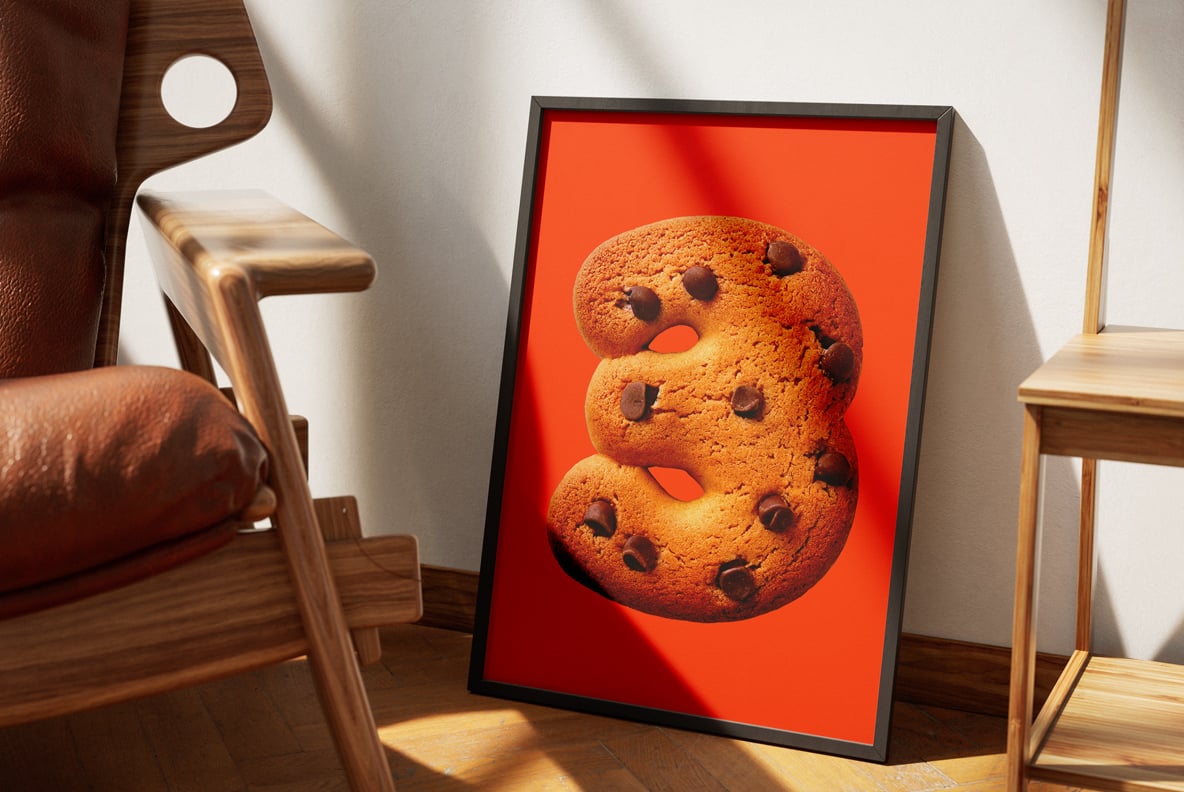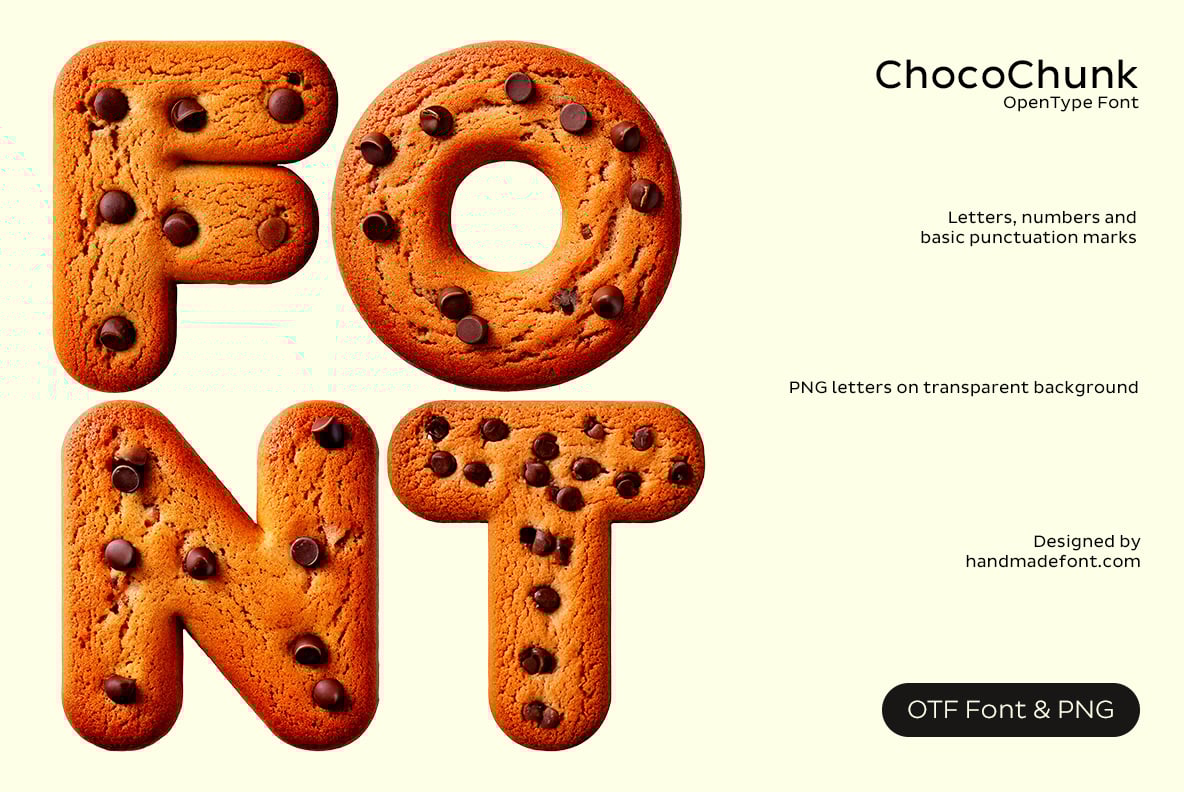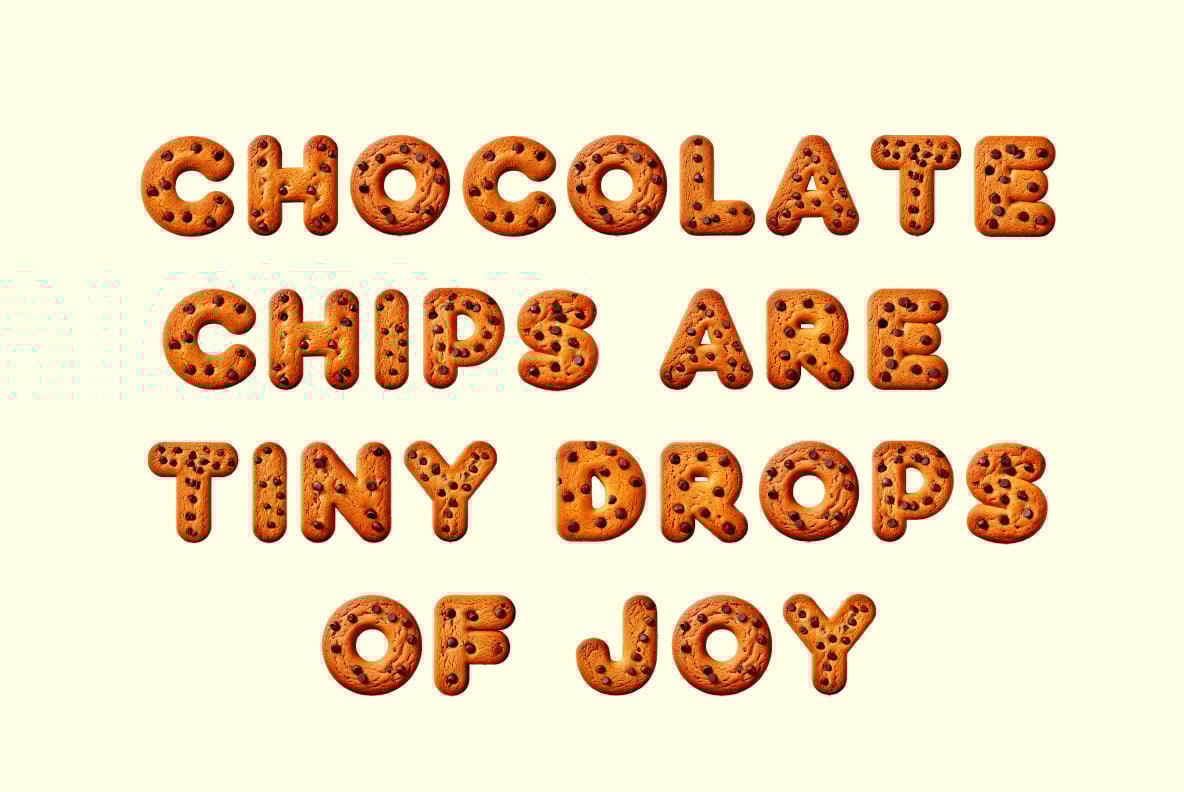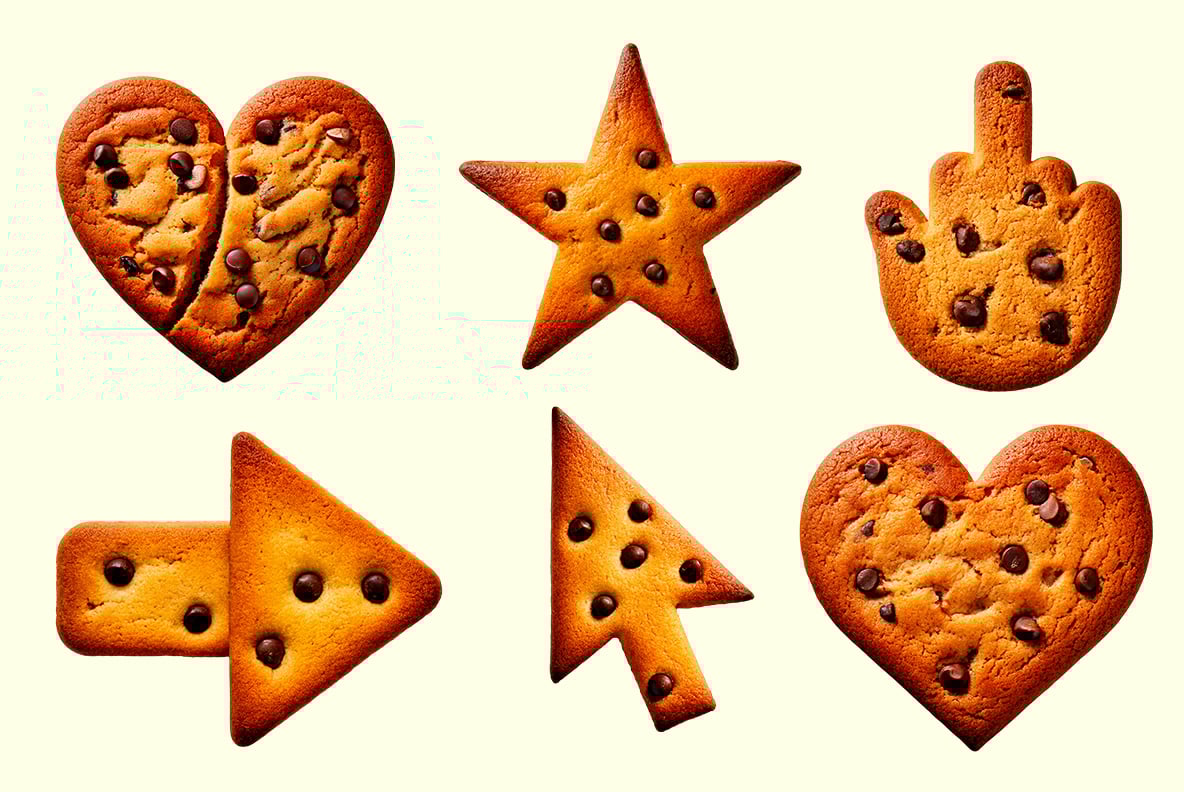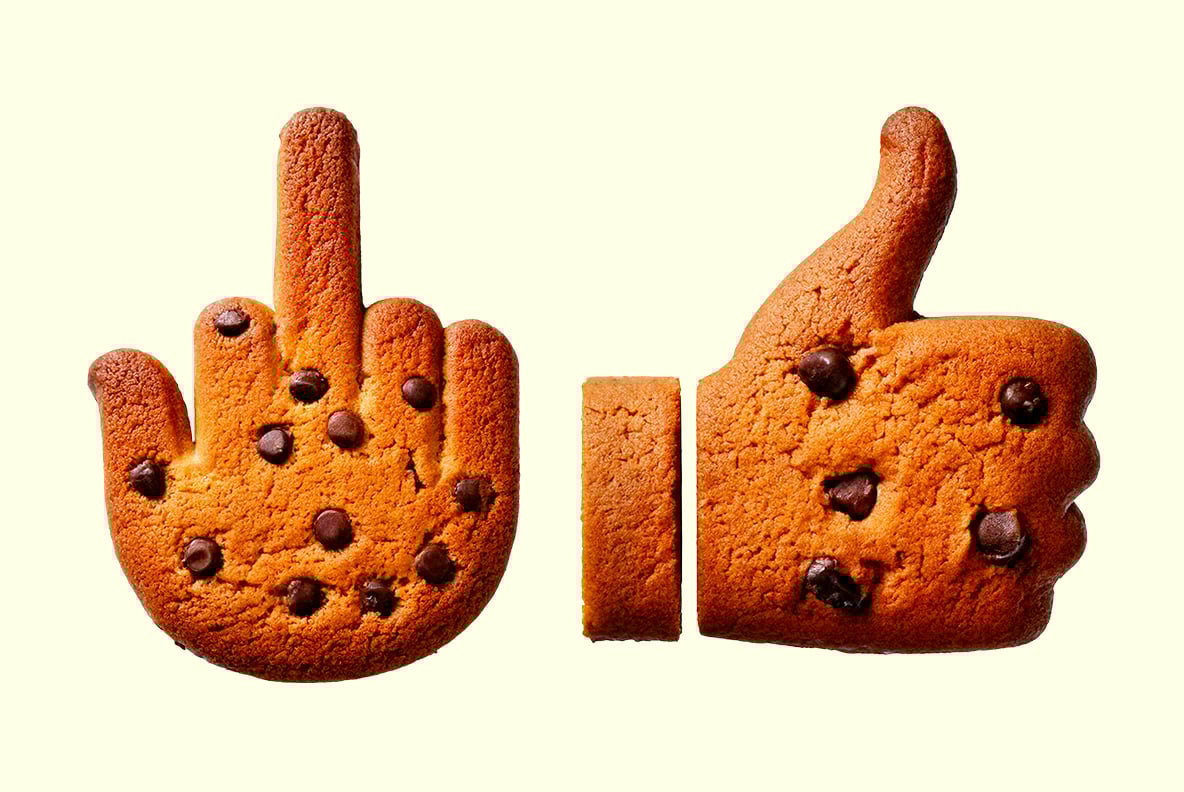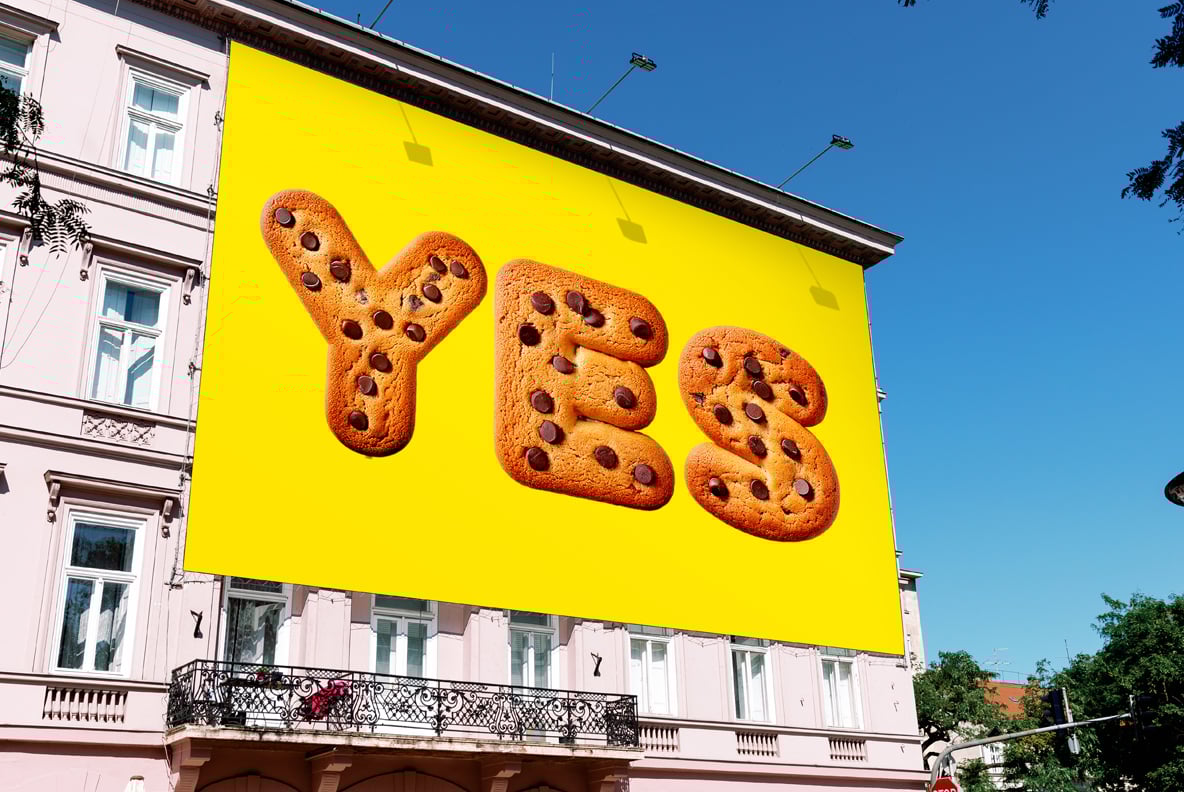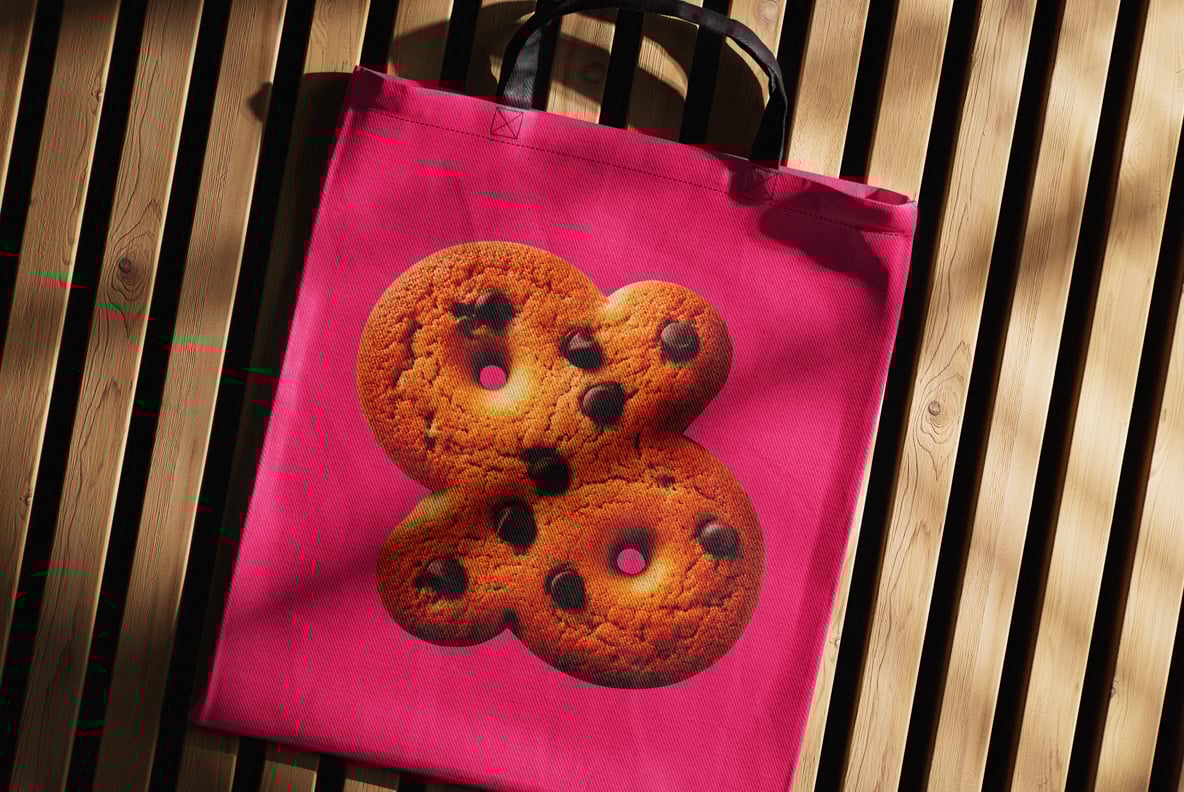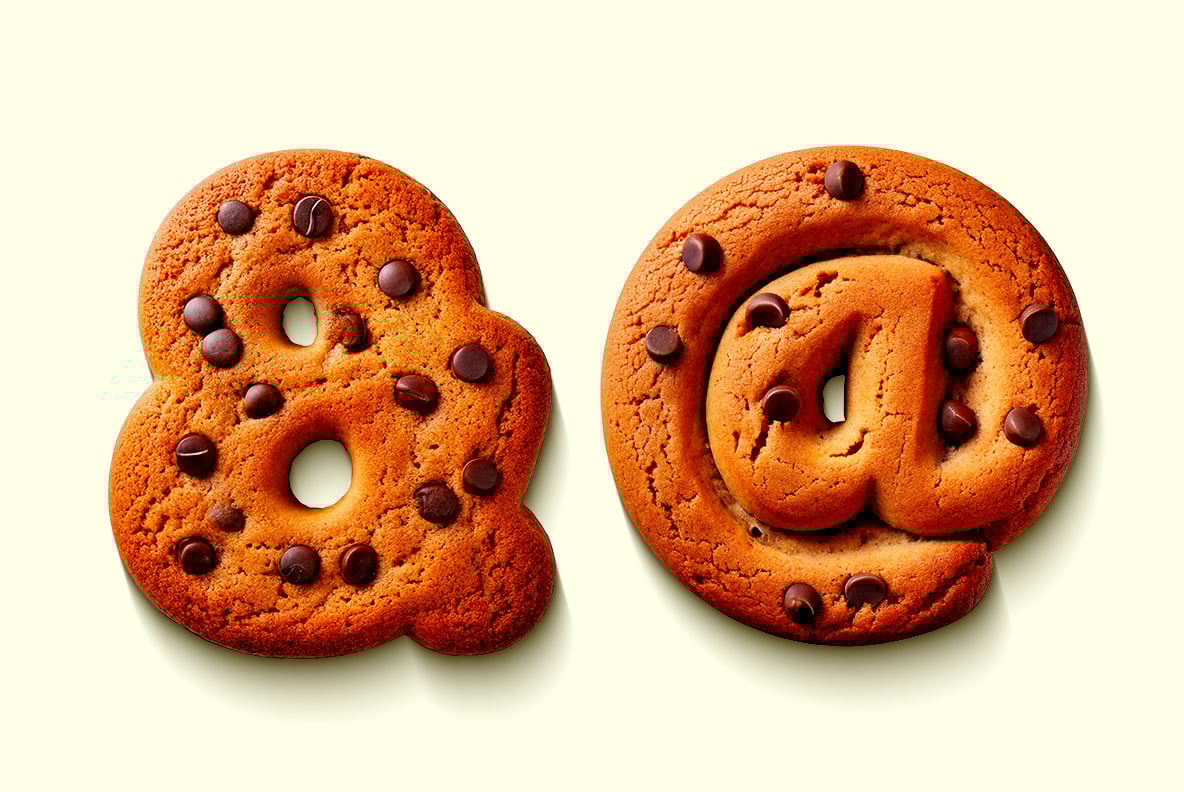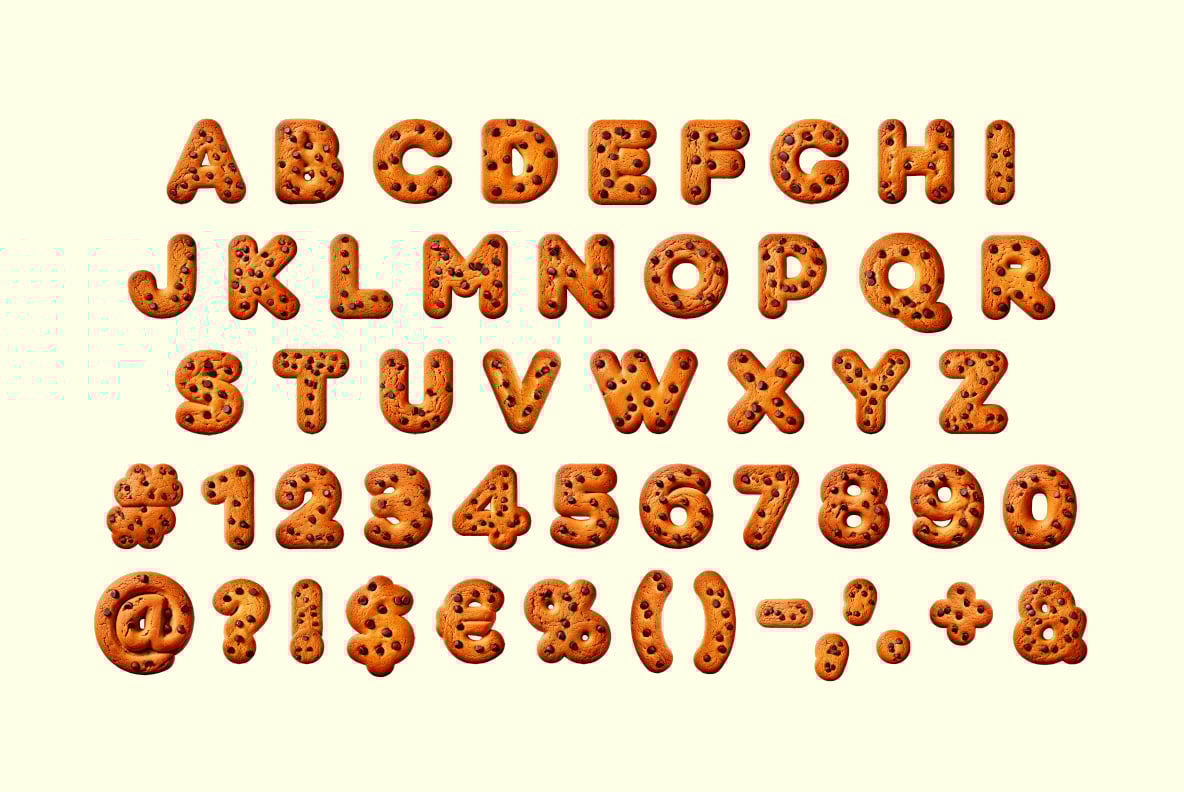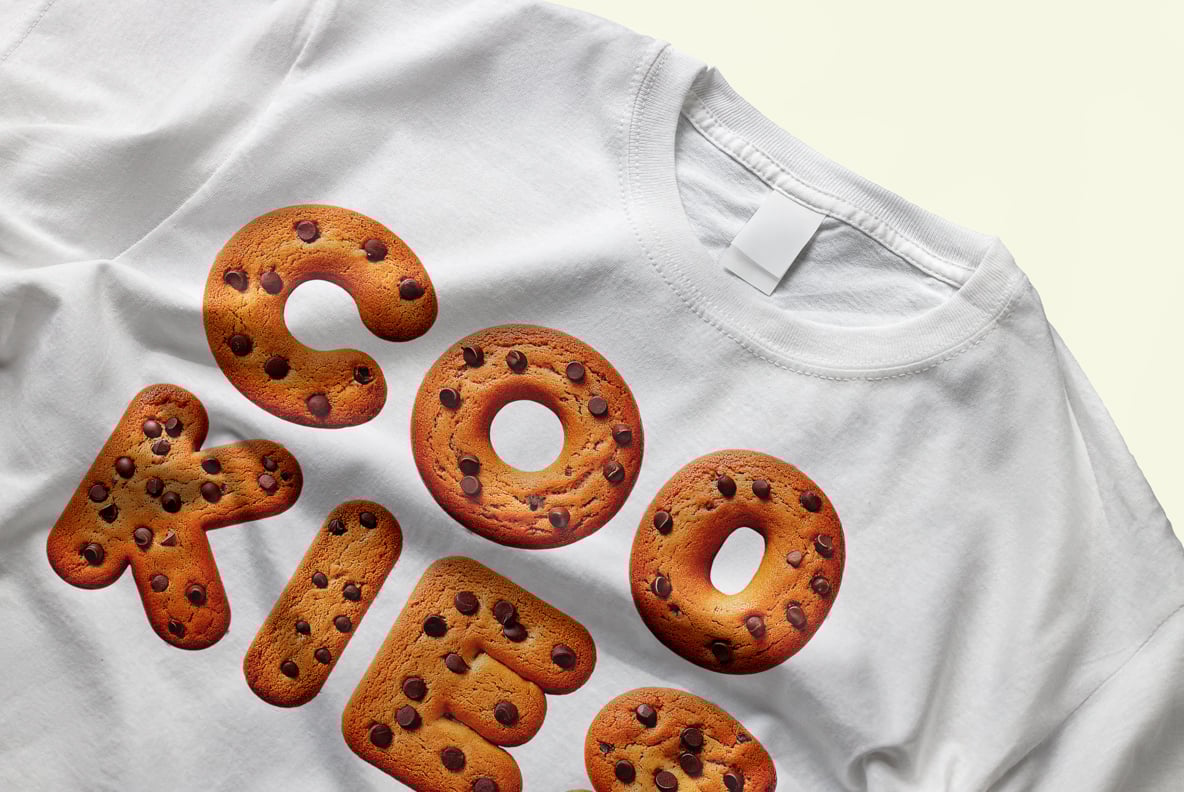
ChocoChunk Font
ChocoChunk Font is a deliciously playful typeface crafted to look like chunky chocolate chip cookies fresh from the oven. Each letter is soft, rounded, and golden-brown with scattered semi-melted chocolate chips for irresistible texture and detail. This font oozes warmth and fun, making it perfect for food branding, playful packaging, kids’ products, or festive campaigns. With its realistic cookie texture and delightful 3D appearance, ChocoChunk Font grabs attention while sparking joy (and cravings). Whether you’re designing a bakery logo or a sweet-themed social media post, this tasty typeface adds a flavorful twist to any project.